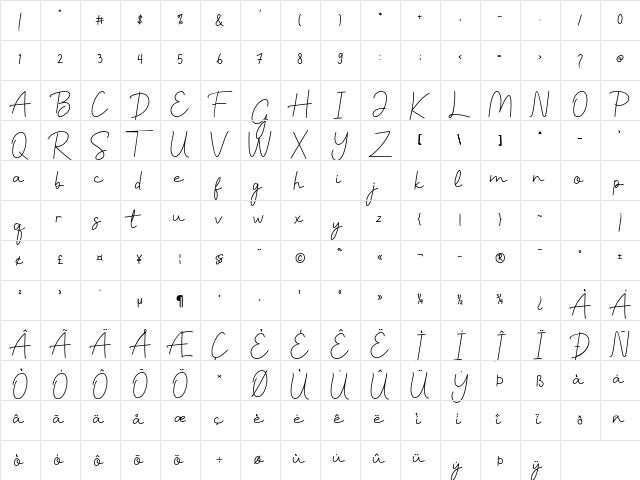
Benalla Regular
| Designer | AEN Creative Studio 2020 |
Design Context for Benalla Typeface
Benalla is a composed and adaptable typeface that performs quietly and consistently across a wide range of design contexts.